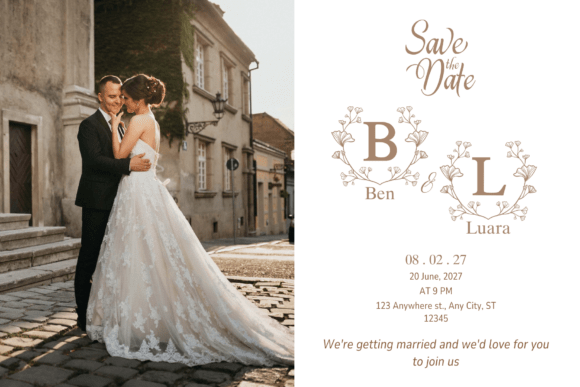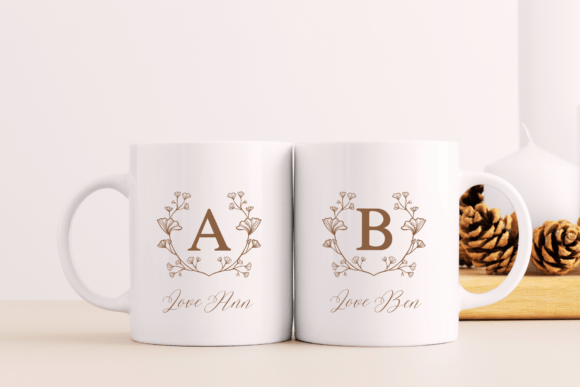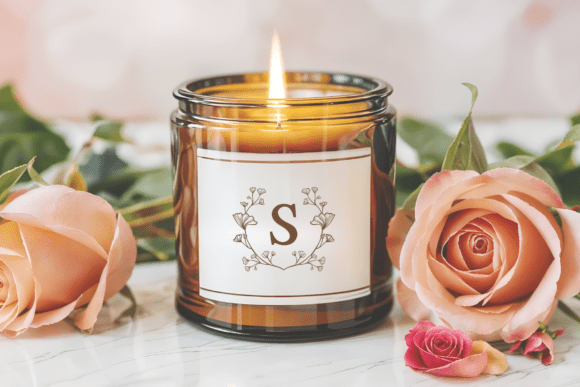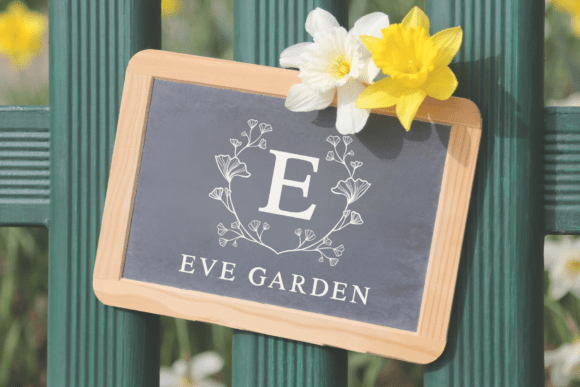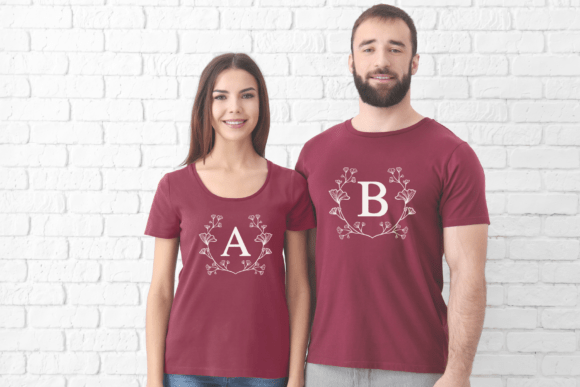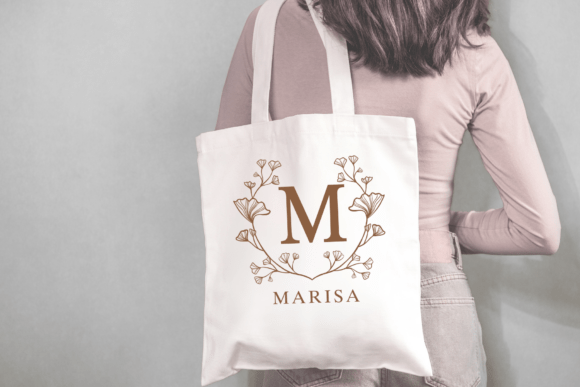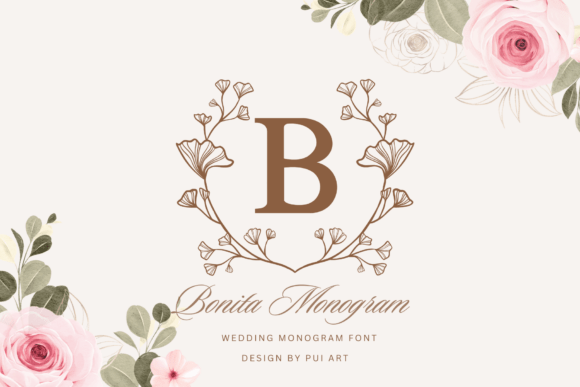
Introducing the Elegant Bonita Monogram Font for Special Occasions
Are you a designer or crafter looking for a font that adds a touch of sophistication and charm to your creations? Look no further than the Bonita Monogram Font. This beautiful font is designed specifically for special occasions, featuring decorative letters inside a stunning flower frame that will make your invitations, wedding cards, and other celebratory materials stand out.
What is Bonita Monogram Font?
Bonita Monogram is an elegant font that combines classic typography with intricate floral designs. The font features decorative letters, carefully crafted to fit inside a beautiful flower frame, creating a unique and eye-catching monogram. The design is perfect for adding a personal touch to wedding invitations, save-the-date cards, thank-you notes, and other special occasion stationery.
Key Features of Bonita Monogram Font
- Elegant Design: The Bonita Monogram Font boasts an elegant design, perfect for formal events and celebrations.
- Decorative Letters: The font features decorative letters that are carefully crafted to fit inside a beautiful flower frame.
- Floral Frame: The stunning flower frame surrounding the letters adds a touch of whimsy and romance to any design.
- Customizable: The font is easily customizable, allowing you to create unique monograms that fit your style and design.
- High-Quality: The Bonita Monogram Font is a high-quality font, designed to produce crisp and clear results, even at small sizes.
The Bonita Monogram Font is an excellent choice for designers and crafters looking to add a personal touch to their creations. Whether you’re designing wedding stationery, creating custom party decorations, or making handmade cards, this font is sure to impress. The elegant design and customizable features make it easy to incorporate into your projects, adding a touch of sophistication and charm.
Ideas for Using Bonita Monogram Font
- Wedding Invitations: Use the Bonita Monogram Font to create beautiful wedding invitations that set the tone for the big day.
- Save-the-Date Cards: Design custom save-the-date cards with the Bonita Monogram Font, adding a personal touch to your wedding stationery.
- Thank-You Notes: Create elegant thank-you notes with the Bonita Monogram Font, perfect for expressing gratitude to friends and family.
- Party Decorations: Use the font to create custom party decorations, such as banners, garlands, and gift tags.
- Handmade Cards: Add a touch of elegance to your handmade cards with the Bonita Monogram Font, perfect for special occasions.
Tips for Getting the Most Out of Bonita Monogram Font
- Experiment with Colors: Try pairing the Bonita Monogram Font with different colors and textures to create unique and eye-catching designs.
- Mix and Match: Combine the font with other design elements, such as illustrations or patterns, to create a cohesive look.
- Play with Sizes: Experiment with different font sizes to create visual interest and add emphasis to your designs.
The Bonita Monogram Font is an elegant and sophisticated font designed specifically for special occasions. With its decorative letters and beautiful flower frame, this font is perfect for adding a touch of charm and whimsy to your designs. Whether you’re a designer or crafter, the Bonita Monogram Font is an excellent choice for creating unique and eye-catching stationery, decorations, and other celebratory materials. So why wait? Download the Bonita Monogram Font today and start creating stunning designs that will leave a lasting impression!